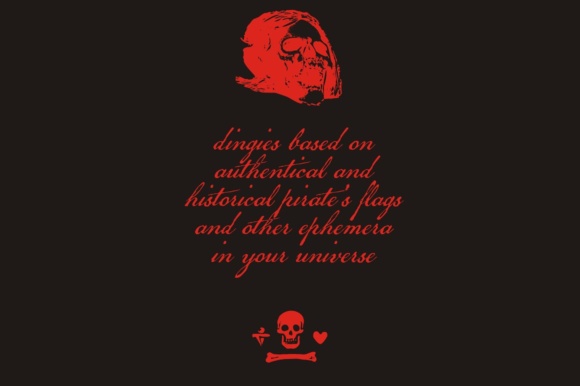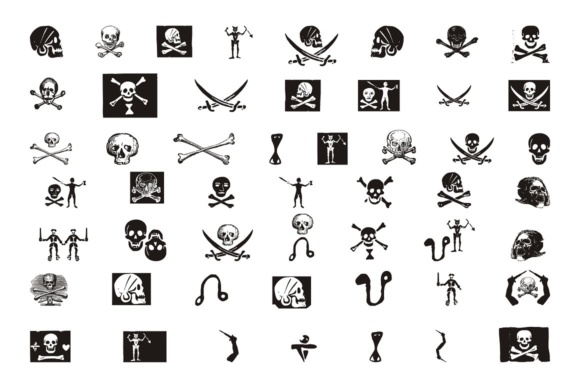
Pirates De Luxe Font
About Pirates De Luxe Font
The Pirates De Luxe font is a fascinating typeface inspired by authentic and historical pirate flags and other ephemera within its own universe. With its unique design, this font captures the spirit and essence of pirate culture, bringing an adventurous and daring touch to your designs.
Drawing inspiration from the iconic symbols and imagery associated with pirates, Pirates De Luxe offers a collection of letters and characters that embody the swashbuckling world of the high seas. Each letter is carefully crafted to reflect the rugged and bold nature of pirate aesthetics, allowing you to create captivating and immersive designs.
Whether you’re working on pirate-themed graphics, creating invitations for themed parties or events, designing posters or merchandise, or even adding a touch of pirate flair to your digital content, Pirates De Luxe provides an excellent choice to bring your visions to life.
The historical references and attention to detail in Pirates De Luxe lend an air of authenticity to your designs. The font pays homage to the rich history and folklore surrounding pirates, allowing you to tap into the allure of their legendary tales and create a sense of intrigue and adventure.
By utilizing the Pirates De Luxe font, you can instantly transport your audience into a world of pirates and maritime escapades. The carefully crafted letters and characters serve as visual anchors, evoking the swashbuckling spirit and adding a touch of excitement to your projects.
Whether you’re designing for print or digital mediums, Pirates De Luxe offers versatility and impact. The distinct and bold letterforms make a statement and capture attention, ensuring that your designs stand out and make an impression.
In summary, the Pirates De Luxe font is an intriguing typeface inspired by authentic and historical pirate flags and ephemera. With its unique design and attention to detail, this font allows you to infuse your designs with the adventurous and daring spirit of pirates. Whether you’re creating pirate-themed graphics or adding a touch of swashbuckling charm to your designs, Pirates De Luxe provides a captivating and immersive experience for your audience.